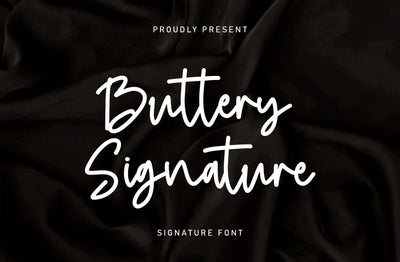
Buttery - Elegant Signature Font
Buttery Signature is a unique and elegant monoline font, this font was created by being inspired by a signature by someone, then developed into a work that can be used by many people.
It comes with an elegant and unique style which is perfect to make any design stand out! This font is perfect for branding, wedding invites, magazines, mugs, business cards, quotes, posters, and more.